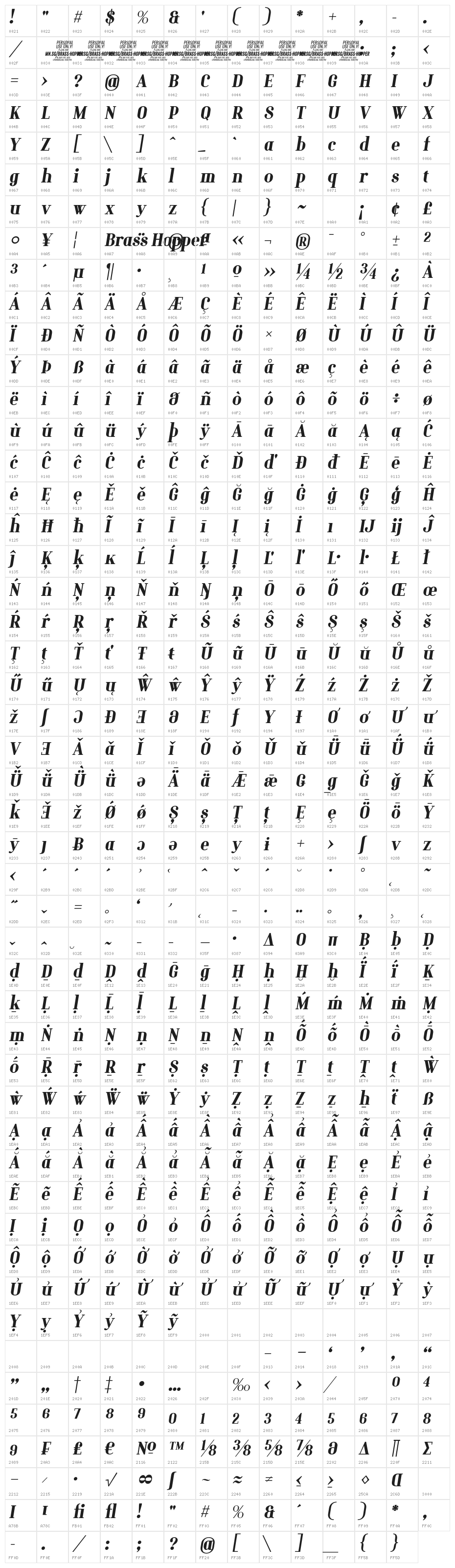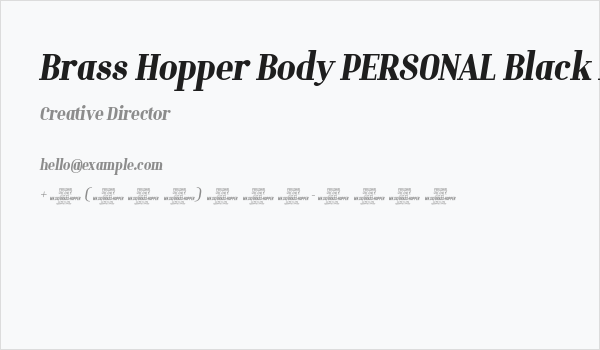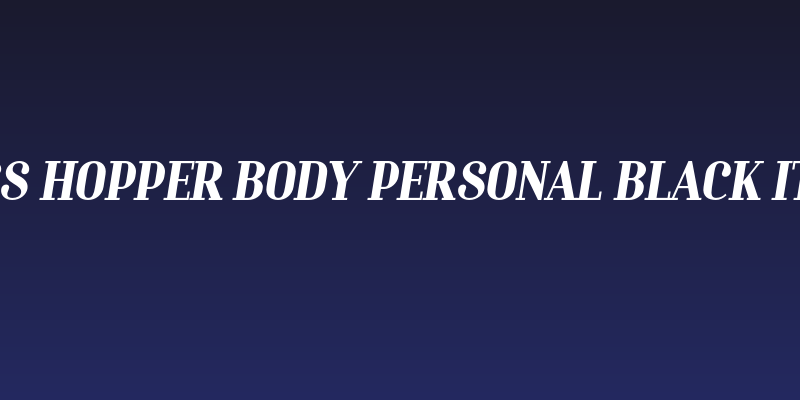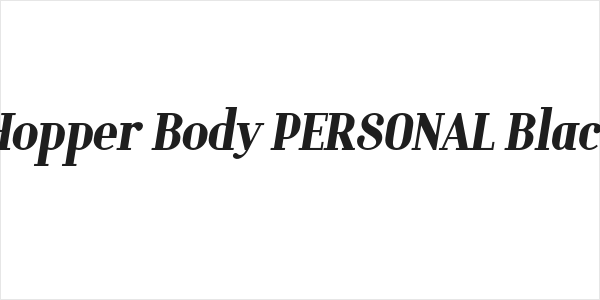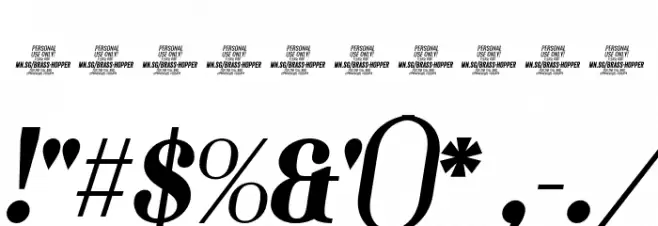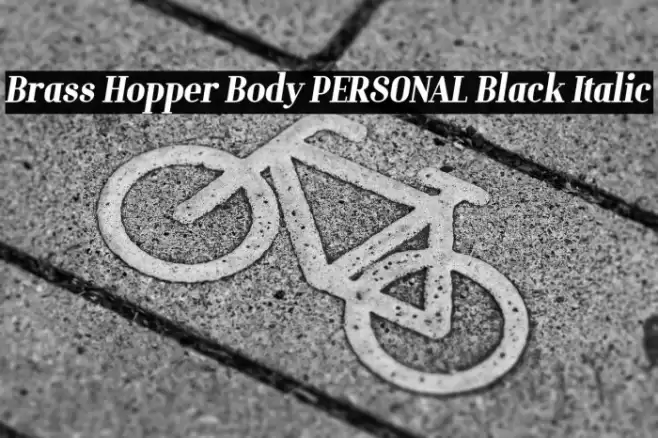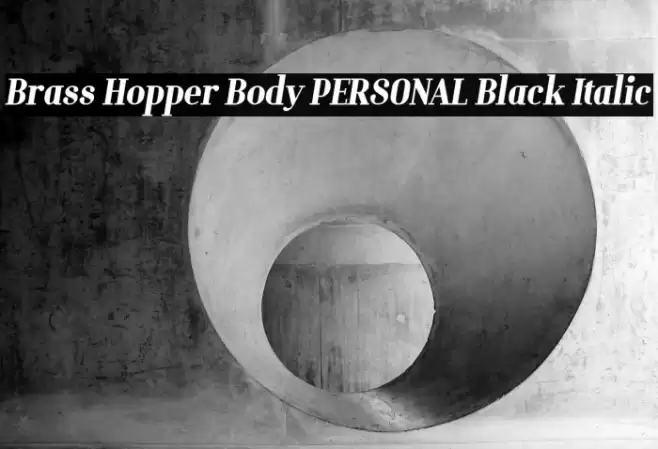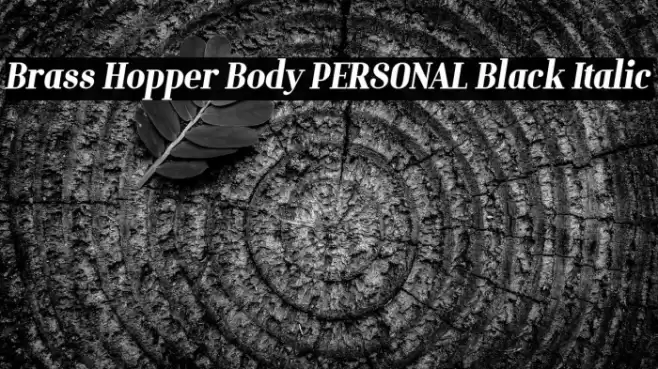
Brass Hopper Body PERSONAL Black Italic Font
Brass Hopper Body PERSONAL Black Italic Description
This font features a bold and dynamic style with a distinct italic slant, creating a sense of movement and elegance. The uppercase letters are strong and commanding, while the lowercase letters maintain a consistent flow, enhancing readability. The numerals are well-proportioned, and the special characters are designed to complement the overall aesthetic. The strokes are thick, providing a high contrast that makes the font stand out, suitable for impactful designs.
| Use Case | Headlines, Logos, Branding |
| Proposed Projects | Ideal for branding, headlines, posters, and editorial design where a strong and elegant presence is desired. |